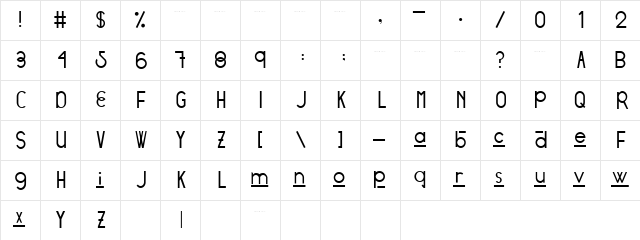
Stratford Regular
| Foundry | Victoria Vandenberg - Bona Fide Craft |
| Designer | Victoria Vandenberg - Bona Fide Craft |
Design Context for Stratford Typeface
Stratford offers clean, dependable letterforms without strong stylistic allegiance, making it a practical choice for designers who need flexibility.